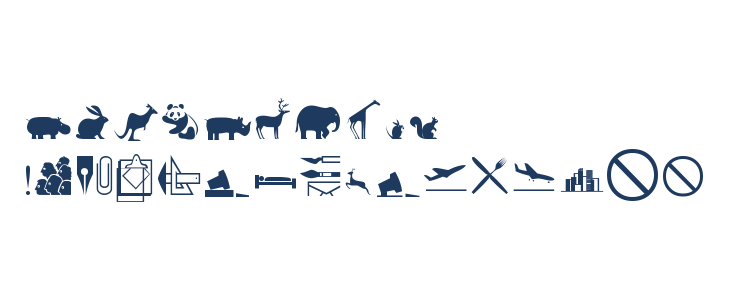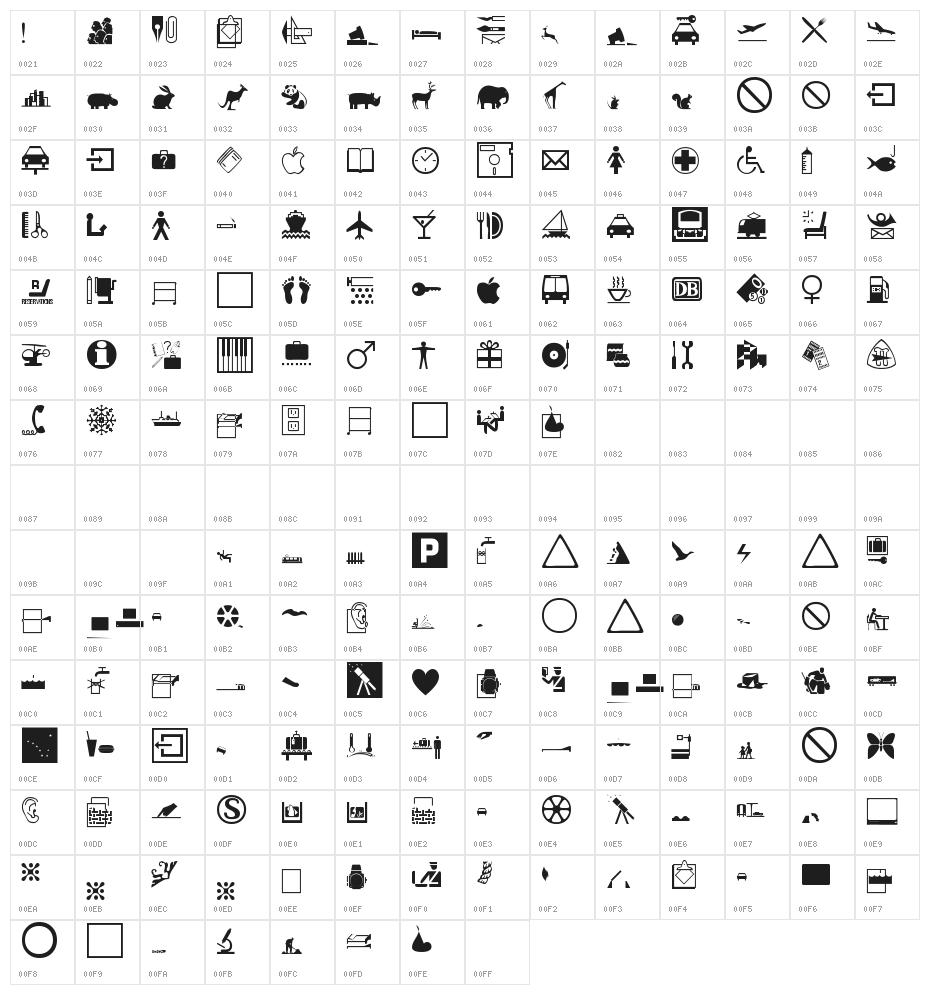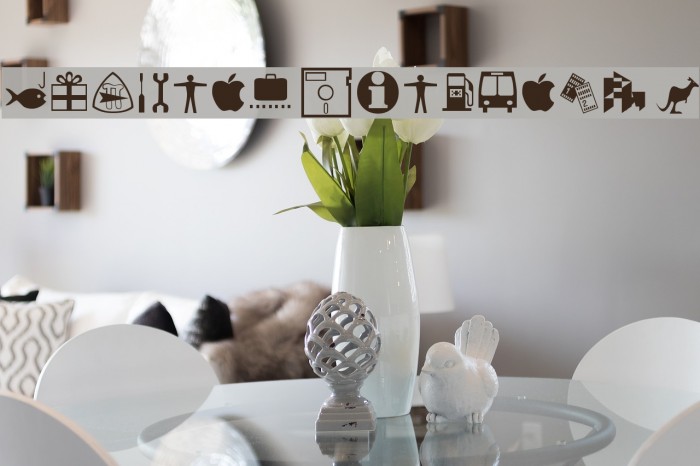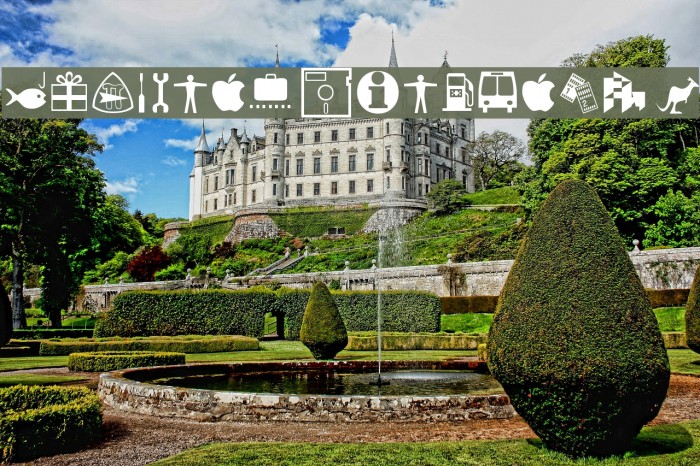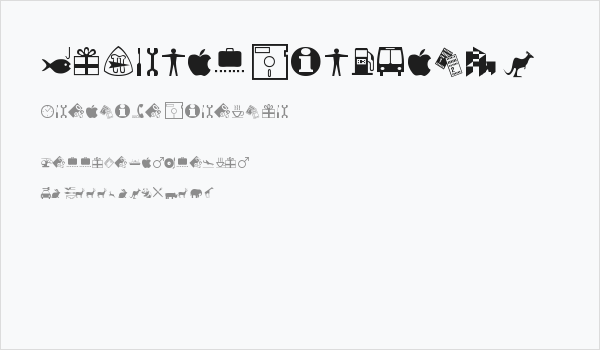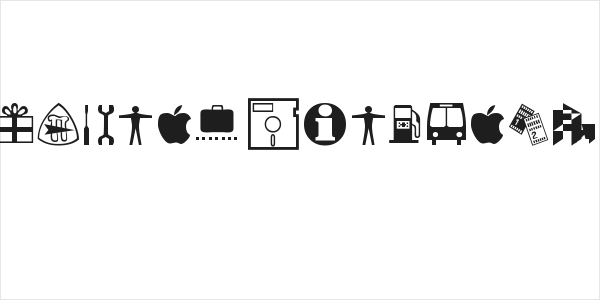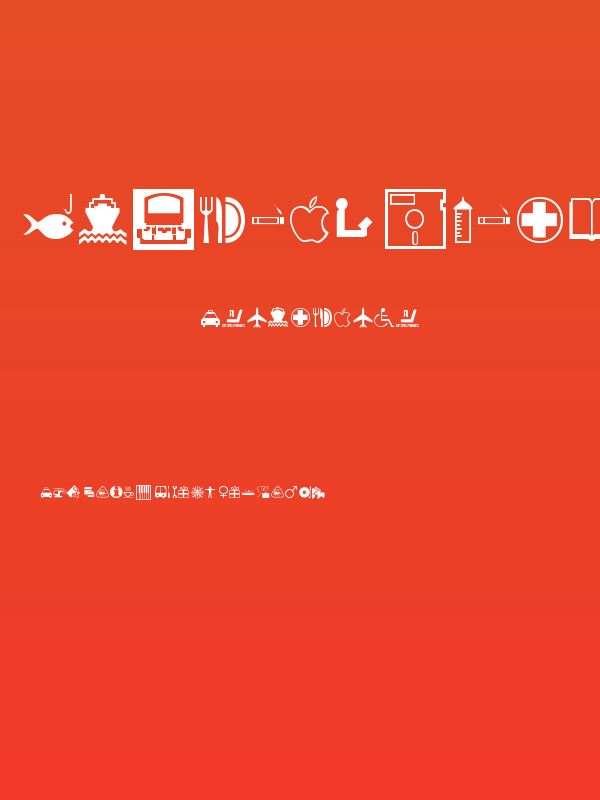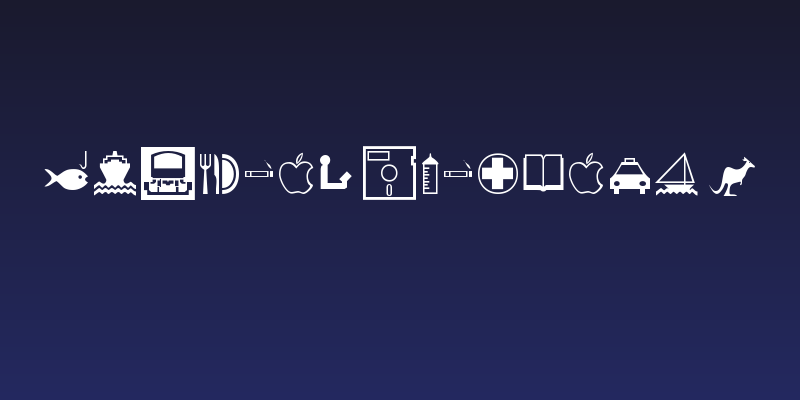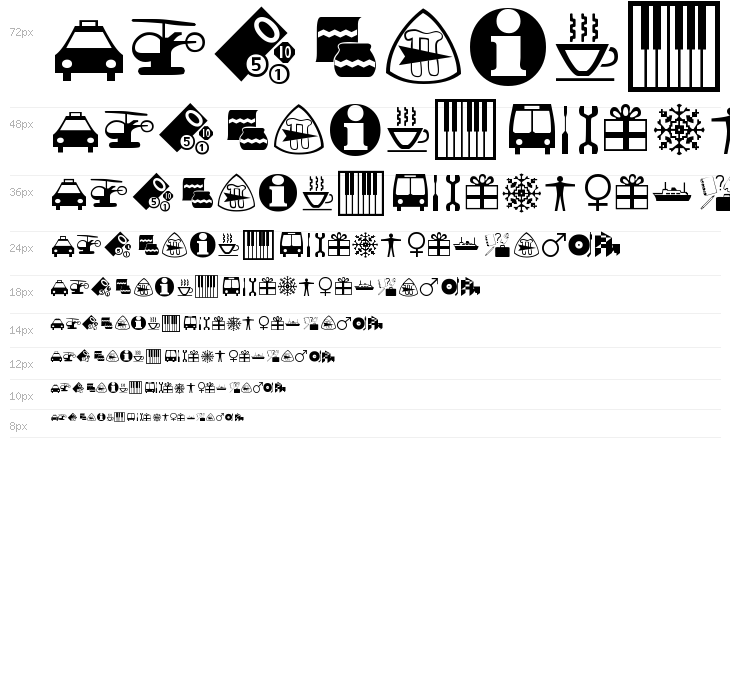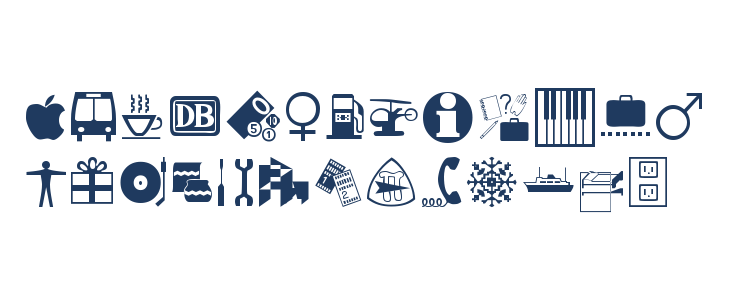
Journal Dingbats 2 Font
Journal Dingbats 2 Description
This collection features a diverse array of pictograms and symbols, ranging from transportation icons like airplanes and buses to everyday objects such as clocks and scissors. The style is bold and clear, making it suitable for signage and instructional materials. The icons are designed with simplicity and clarity in mind, ensuring they are easily recognizable at a glance. The set includes symbols for accessibility, gender, and various activities, providing a comprehensive toolkit for communication in public spaces.
| Use Case | Signage, Instructional materials, User interfaces |
| Proposed Projects | Ideal for creating public signage, instructional guides, educational materials, and user interface design. |